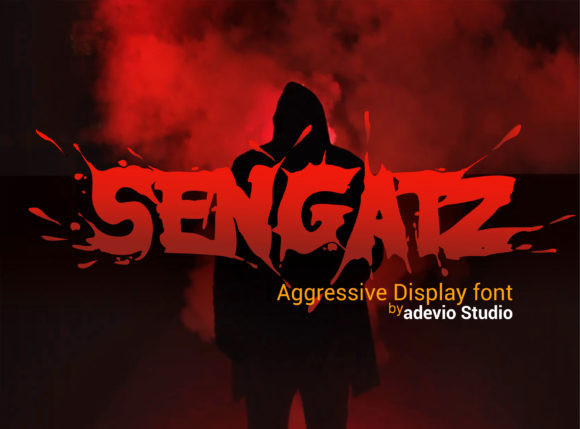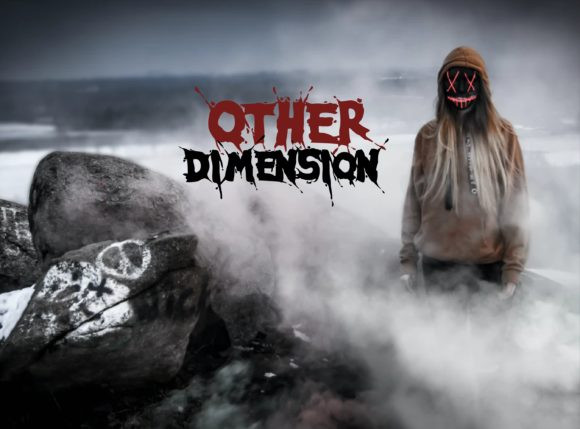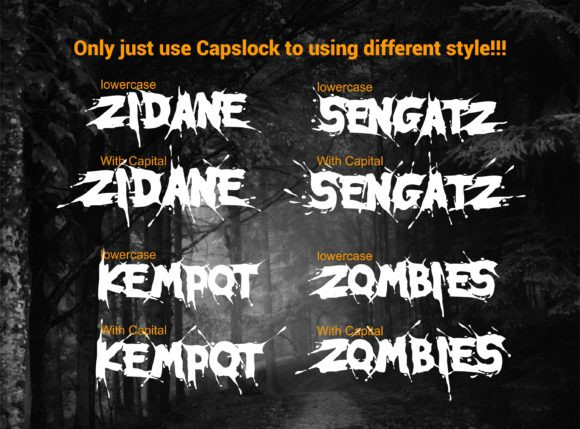
Sengatz Font
Sengatz is a bold and incredibly powerful display font. Add it to your most creative ideas and notice how it makes them come alive! The only limit is your imagination.